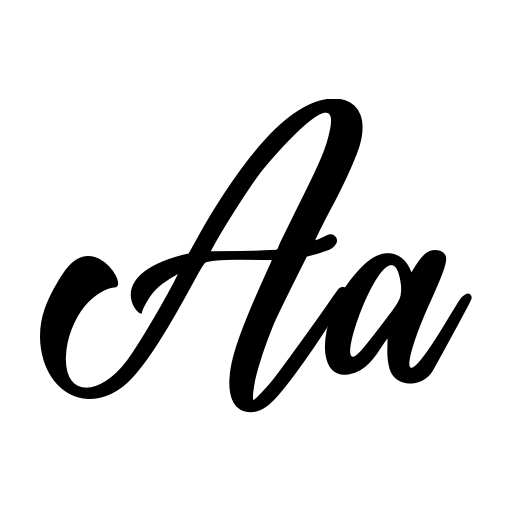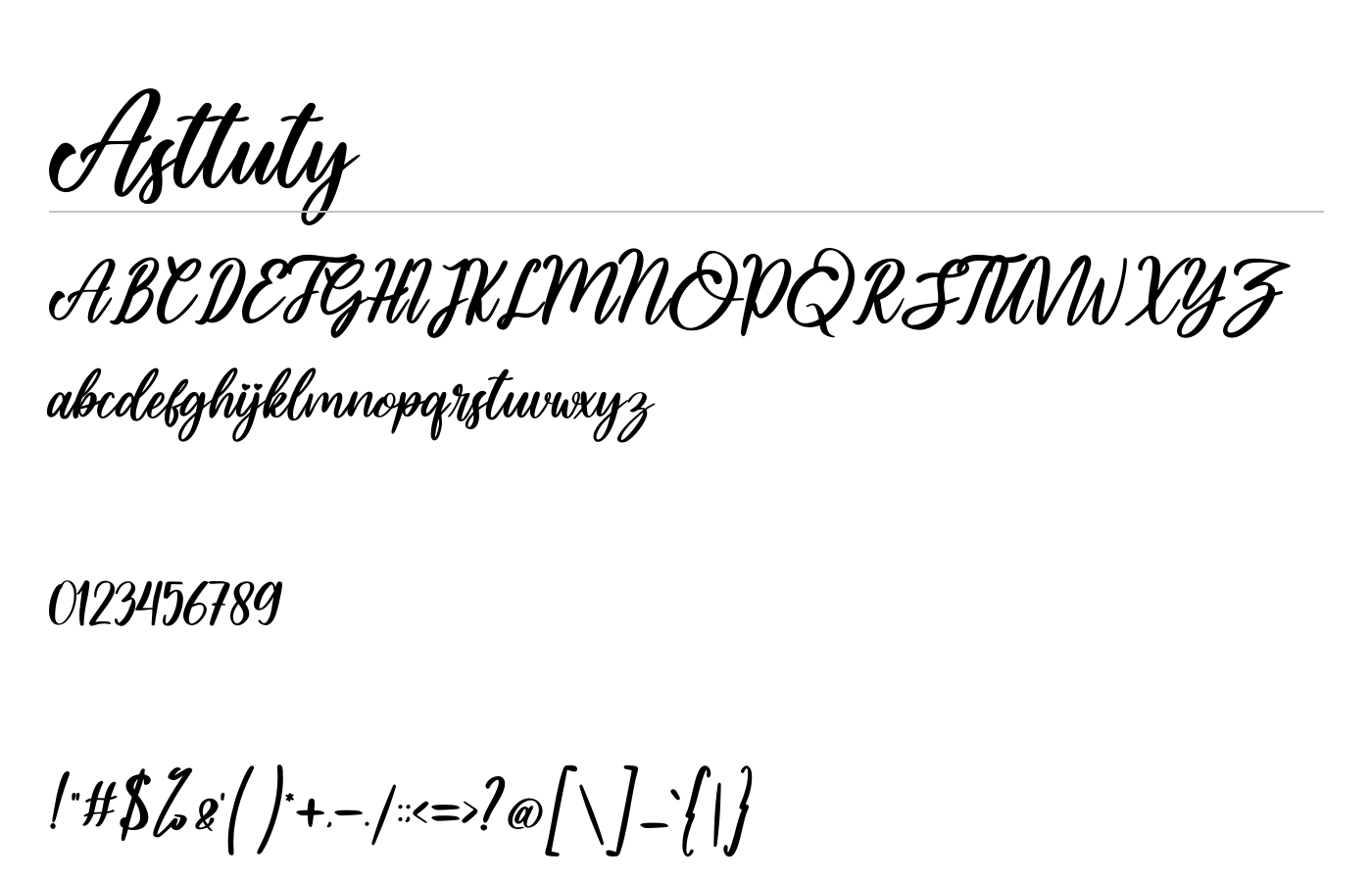
Asttuty is an elegant script font with a refined, handwritten style that combines fluid, slightly condensed letterforms with moderate contrast between thick and thin strokes. Its graceful curves and distinctive capital letters give it a sophisticated and personable feel, ideal for adding a touch of charm and flair to invitations, branding, and creative projects where a stylish, modern script is desired.
Asttuty Font
About Asttuty Font